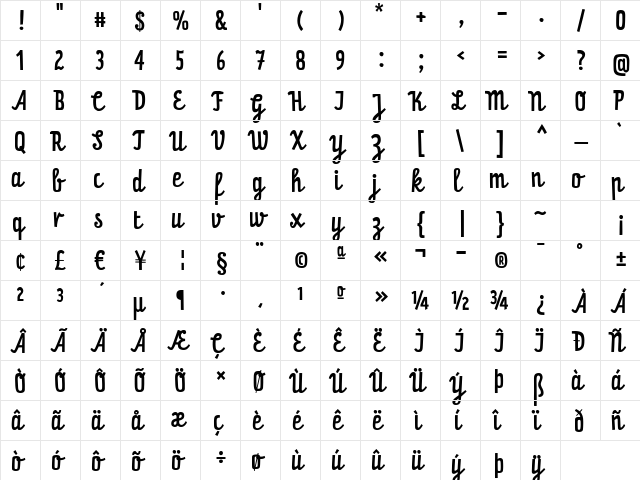
PraterScriptOneRegular Regular
Design Context for PraterScriptOneRegular Typeface
PraterScriptOneRegular brings a calligraphic fluidity to the page — its connecting strokes and expressive curves give it an unmistakably human quality.